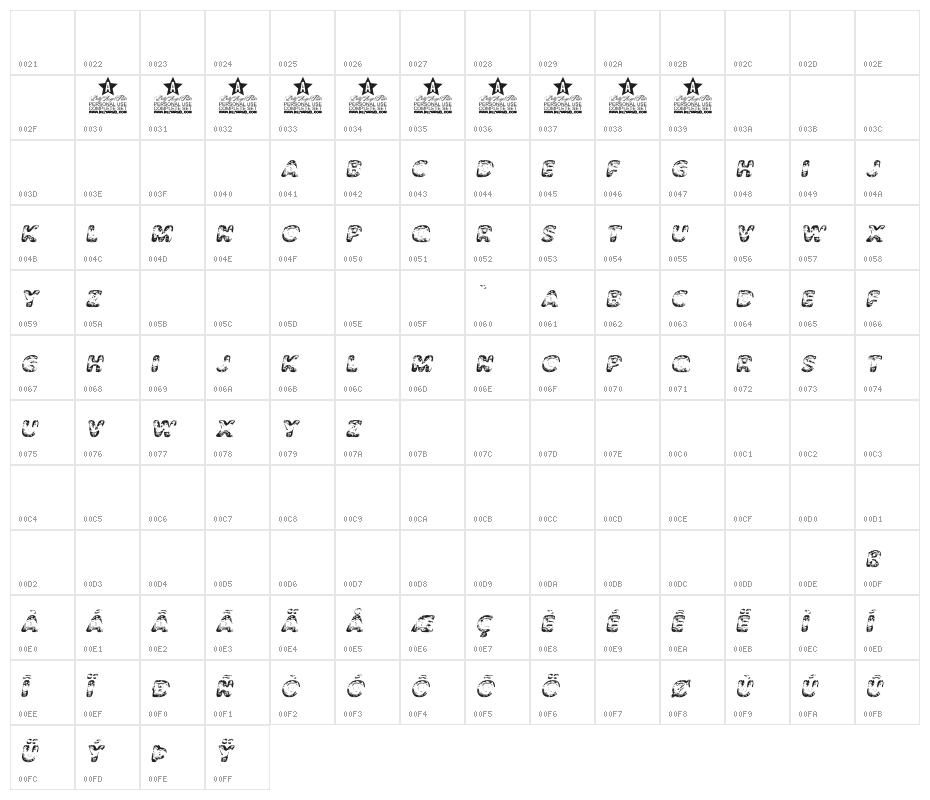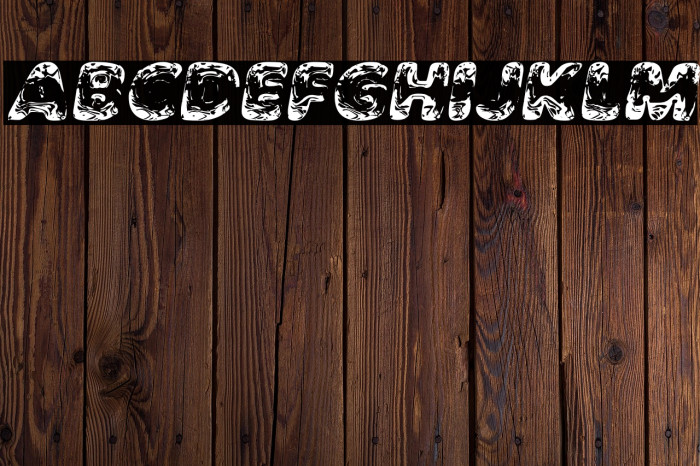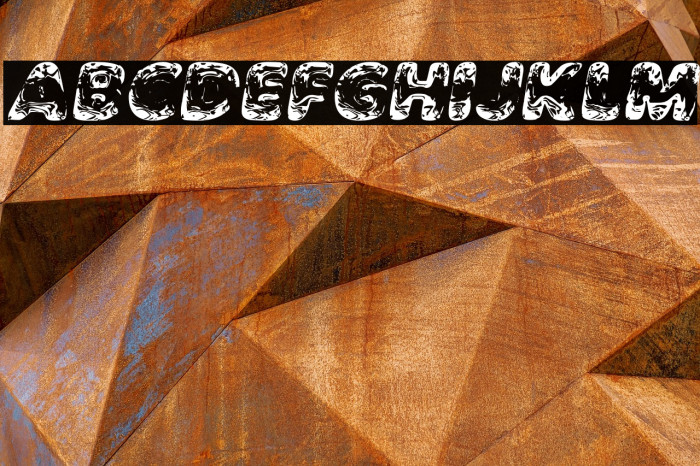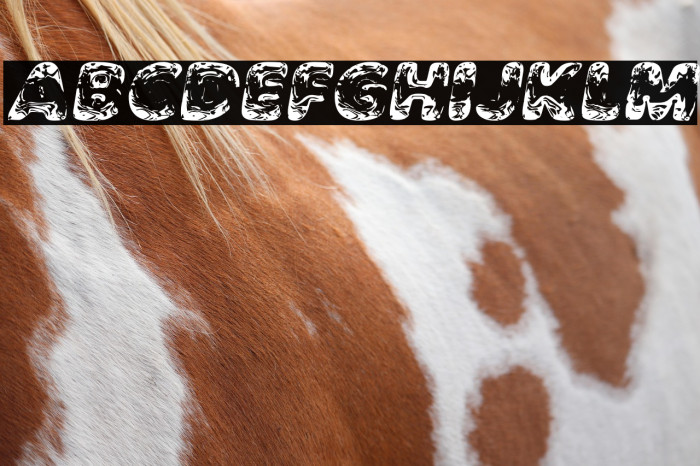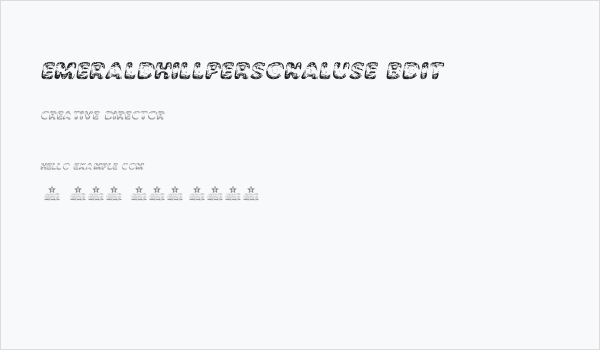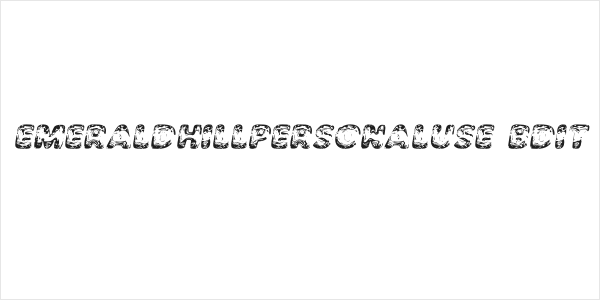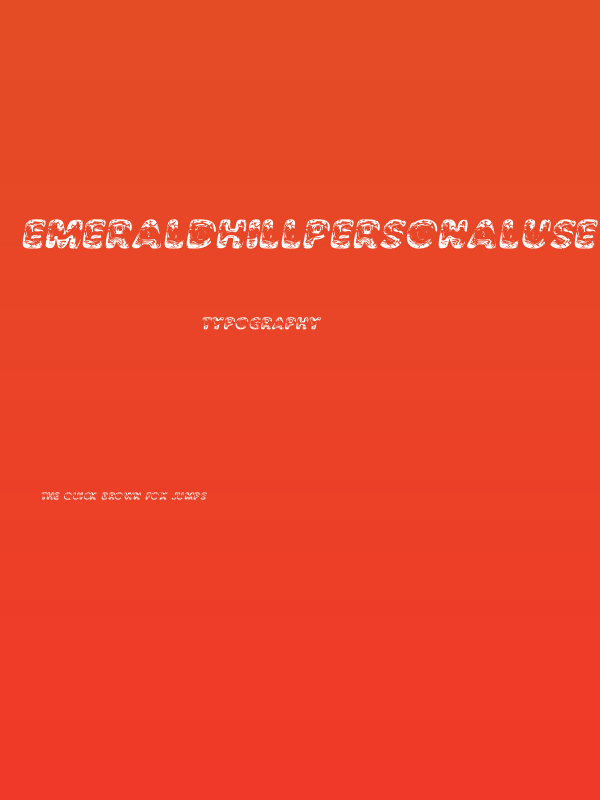
EMERALDHILLPERSONALUSE-BdIt Font
EMERALDHILLPERSONALUSE-BdIt Description
This font features a bold and dynamic design with a distressed, textured appearance. Each character is filled with intricate patterns that give it a rugged and artistic feel. The uppercase letters are particularly striking, with their bold outlines and unique internal detailing. This font captures attention with its decorative style, making it ideal for creative projects that require a strong visual impact. The characters are well-defined, yet the distressed effect adds a sense of movement and energy, making it suitable for modern and edgy designs.
| Proposed Projects | Ideal for posters, album covers, branding, and any project needing a bold, artistic touch. |